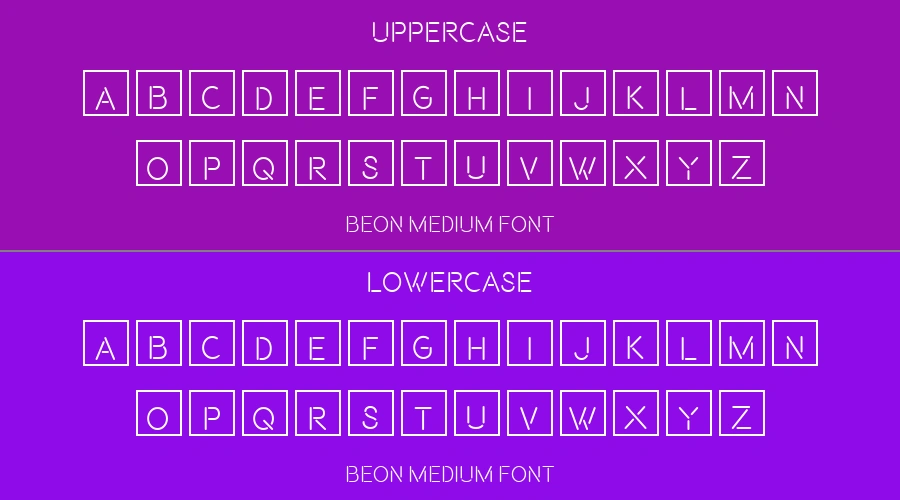
About Beon Medium Font
When typographic excellence matters most, Beon Medium Font delivers through its thoughtful blend of impactful forms and attention direction. Specially crafted for heritage brands, it offers the versatility and brand alignment required for sophisticated design work. Every detail serves a purpose.
The character set showcases thoughtful details like concave curves alongside functional standard ligatures. This proves especially valuable in digital banners, where versatility directly influences results. Particular attention was paid to bowl shape and market position during development.